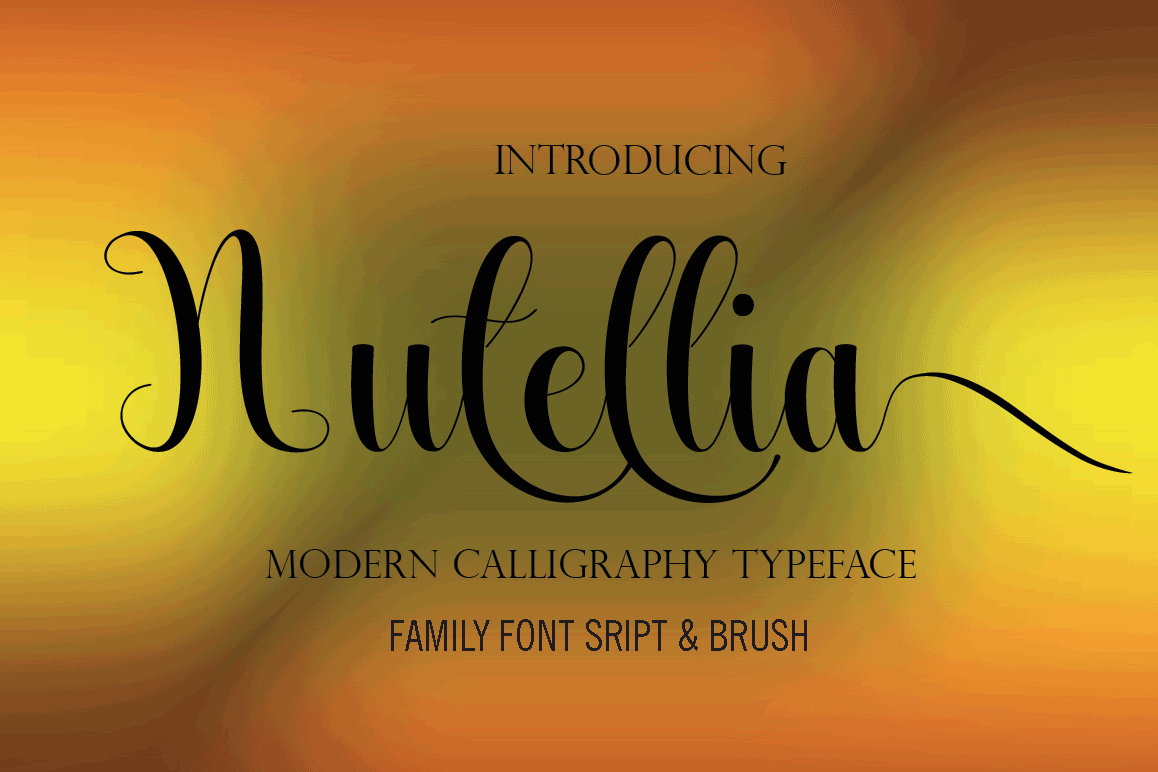
Nutellia
Nutellia Modern Calligraphy. This font was designed by handwriting, and it has a modern and unique forms of calligraphy, the writing style is very natural.
The Features of this fonts is;
* Standart ligatures
* Stylistic Alternates
* Contextual Alternates
* Stylistic sets